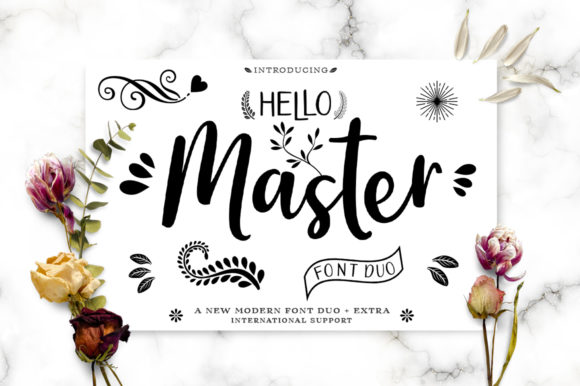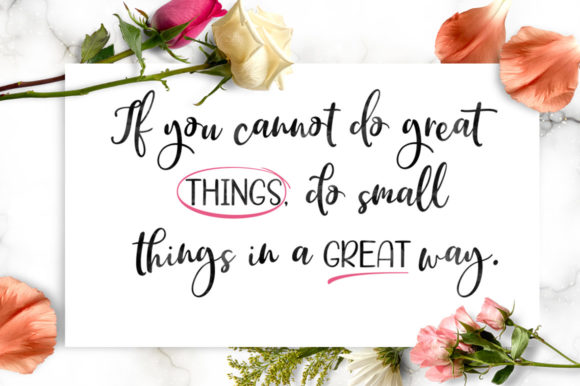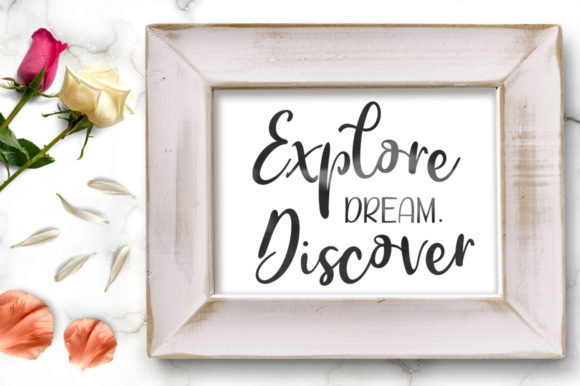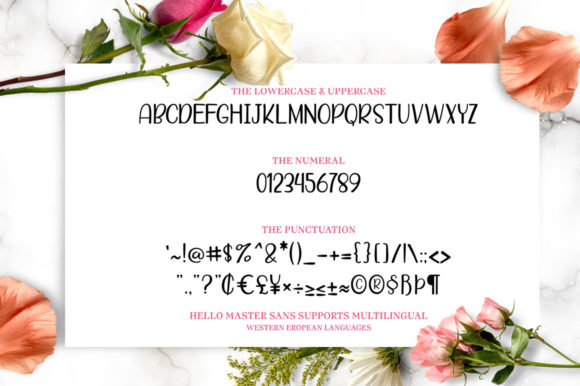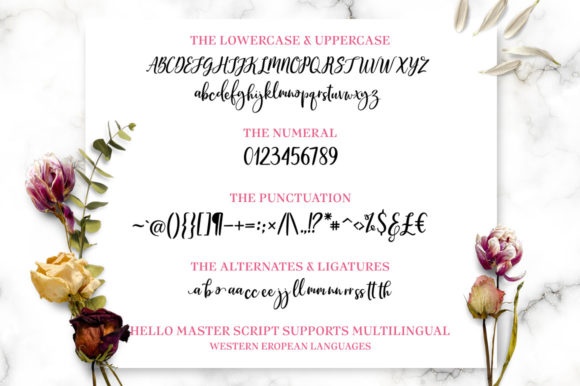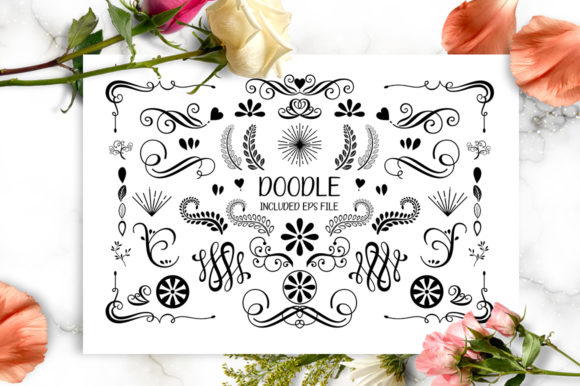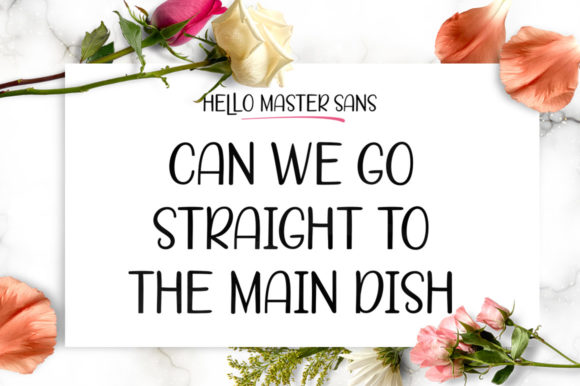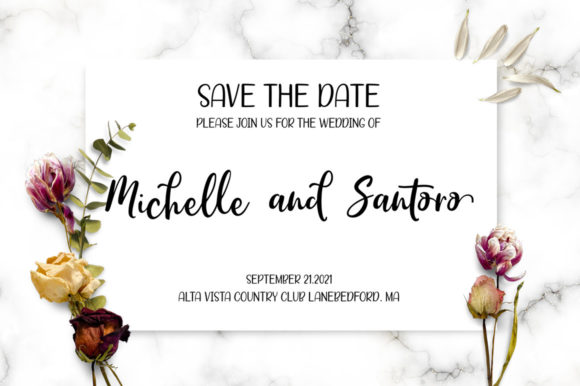
Hello Master Trio Font
Introducing “Hello Master Trio,” a versatile and beautiful font trio consisting of a sans serif, script, and dingbat font. This trio offers a wide range of possibilities for your design projects, adding a touch of elegance and customization.
The sans serif font of the Hello Master Trio is clean, modern, and legible, making it perfect for a variety of applications. Whether you’re designing wedding invitations, thank you cards, quotes, greeting cards, logos, or business cards, this font provides a sleek and professional look that can elevate your designs.
The script font in the trio brings a touch of sophistication and elegance to your projects. With its graceful and flowing characters, it adds a sense of beauty and personalization to your designs. Use it for headings, titles, or any text that needs a touch of handcrafted charm.
To add a unique and decorative element to your designs, the dingbat font in the trio offers a collection of symbols, icons, and ornaments. These glyphs can be used to enhance your designs, add visual interest, or create decorative elements for your projects.
One of the key features of the Hello Master Trio is its PUA encoding. This means that you can easily access all the glyphs and swashes, allowing you to fully customize your designs. Whether you want to add flourishes, decorative elements, or special characters, the PUA encoding ensures that you have the flexibility to create unique and personalized designs.
The Hello Master Trio is suitable for both print and digital applications. It looks stunning on various materials, such as wedding invitations, thank you cards, and business cards. Additionally, when used in digital designs for social media posts, logos, or website elements, the trio adds a touch of elegance and customization that captivates your audience.
In conclusion, Hello Master Trio is a versatile and beautiful font trio that combines a sans serif, script, and dingbat font. With its PUA encoding, you have easy access to all the glyphs and swashes, allowing you to customize and personalize your designs effortlessly. Whether you’re working on wedding invitations, thank you cards, logos, or any other design project, Hello Master Trio offers a stylish and customized touch to make your creations stand out.